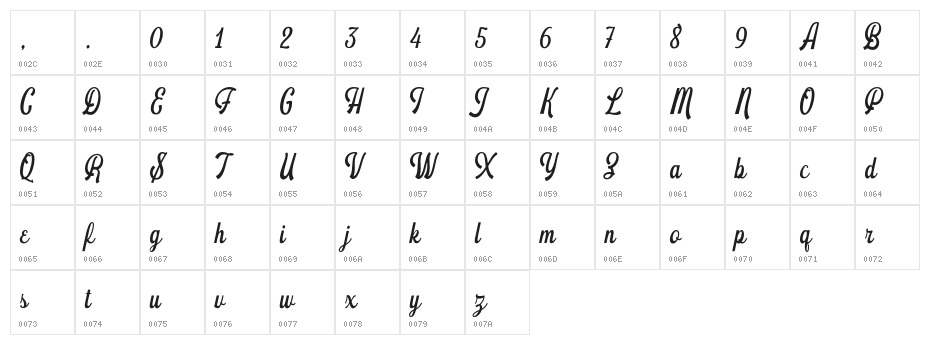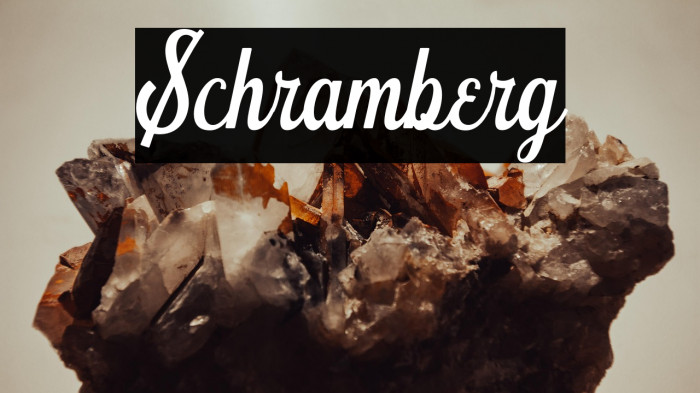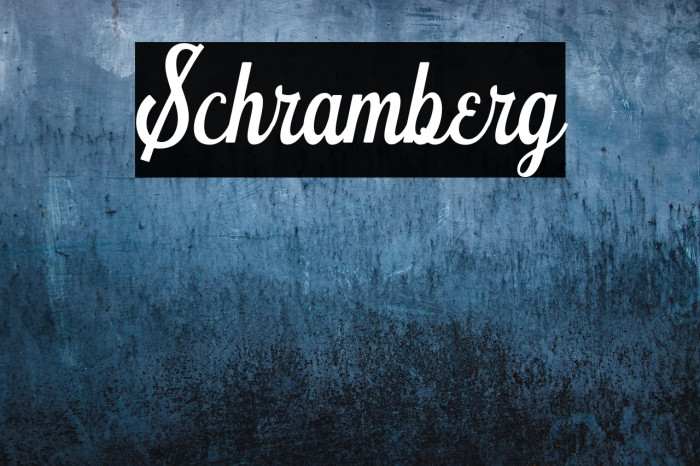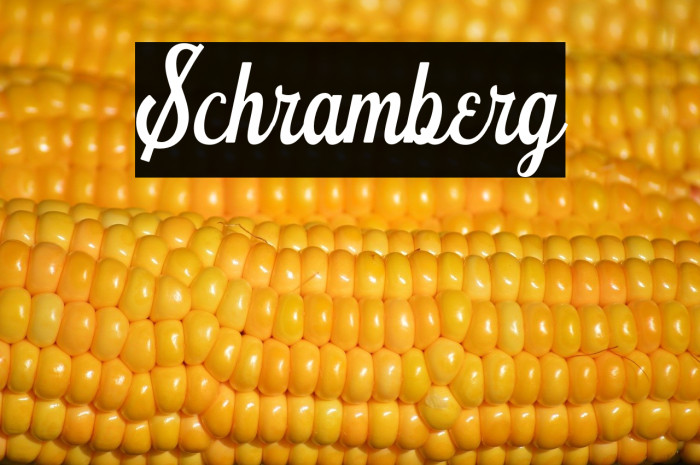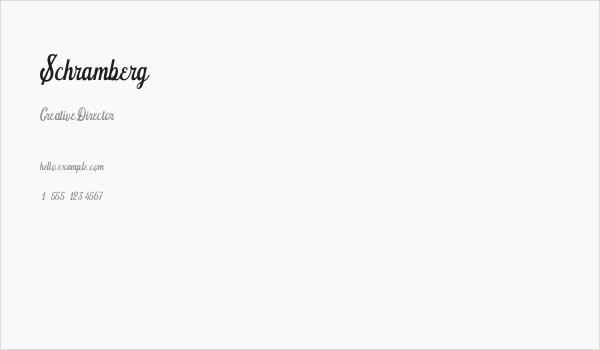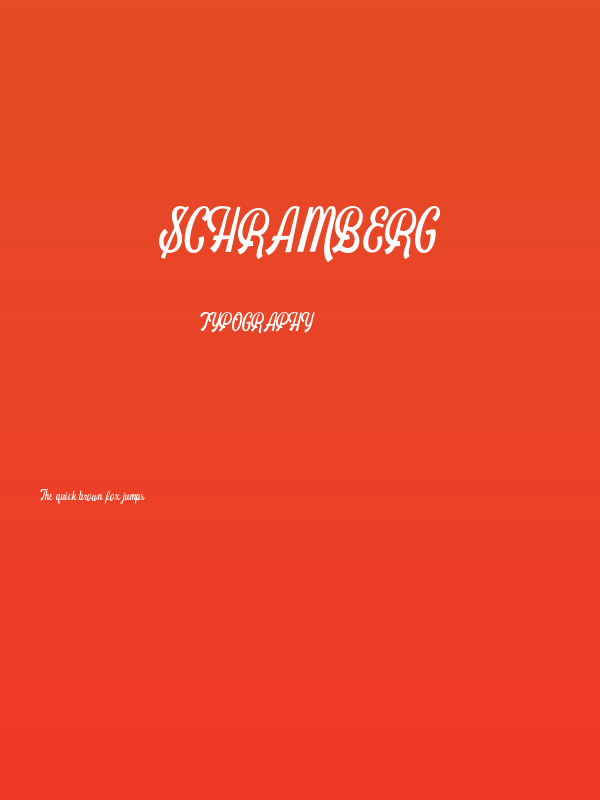
Schramberg Font
Schramberg Description
This font exhibits a classic script style with elegant, flowing lines and a slight slant, reminiscent of traditional calligraphy. The uppercase letters are bold and ornate, featuring intricate curves and flourishes, while the lowercase letters maintain a more subdued yet still decorative appearance. The numerals are consistent with the overall style, offering a cohesive look across all characters. The special characters, including punctuation marks, are designed to complement the script's aesthetic, adding to its decorative appeal. This font is ideal for projects that require a touch of sophistication and elegance.